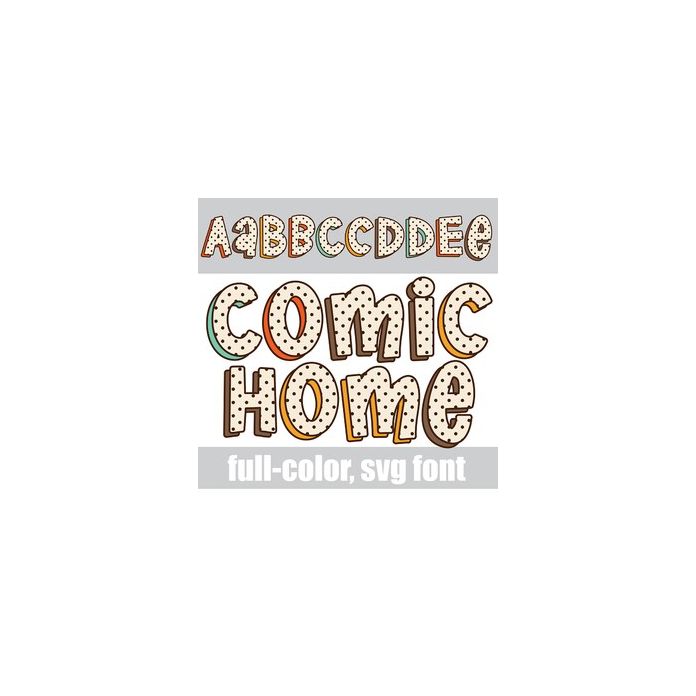
This full-color font features a cartoon style font in Thanksgiving color palette. There is an alt case w/ additional colors you can access through your system or Silhouette's glyph map.